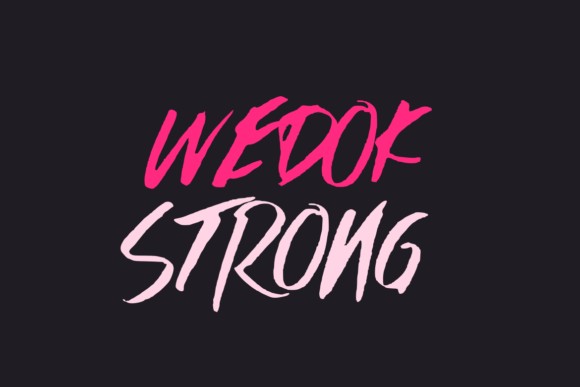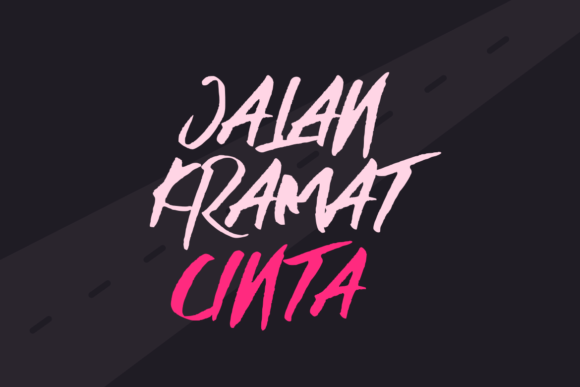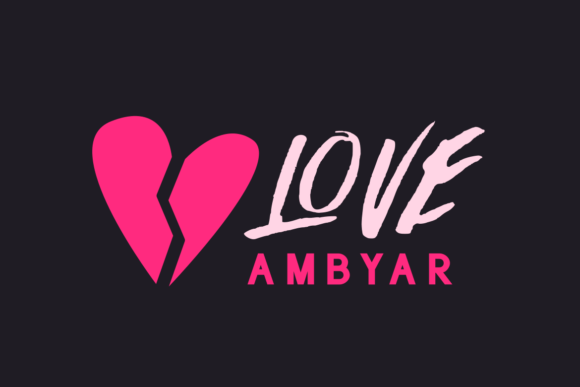
Introduction to Ngamok Font
Have you ever been stuck on a creative project, desperately searching for the perfect font to bring it to life? The frustration of scrolling through endless options can be overwhelming, but what if I told you there’s a game-changer waiting for you? Enter the Ngamok Font, a bold and captivating display font designed to make your creative projects truly stand out from the crowd.
As a designer, you know the importance of having a reliable design resource that can elevate your work. That’s exactly what the Ngamok Font offers – a high-quality, free download that’s perfect for adding a touch of sophistication to your designs. With its transparent background, you can easily layer it over images or other elements, creating a visually stunning effect that’s sure to impress.
Whether you’re working on a branding project, a social media campaign, or a blog post, the Ngamok Font is an invaluable asset that will take your designs to the next level. Its unique style and versatility make it a must-have for any designer looking to add a touch of creativity and flair to their work.
Key Features of Ngamok Font
- Unique, high-quality design resource with a transparent background, ideal for creative projects.
- High-resolution design with a minimum resolution of 300 DPI, ensuring crisp and clear text display.
- Perfect for use in various creative projects, including logos, typography, and graphic designs.
- Comes in a single font size, making it easy to use and customize in various design applications.
- Designed to be versatile and easy to use, making it an excellent addition to any design resource collection.
Honest Review: Ngamok Font
I recently stumbled upon the Ngamok Font, and I must say, it’s been a delightful addition to my design resources. The first thing I noticed was the high quality of the font – crisp, clear, and incredibly versatile. ✨
Here are some of the things that work well with the Ngamok Font:
- Clean and modern aesthetic
- Perfect for digital designs, from logos to social media graphics
- Highly customizable, making it ideal for creative projects
- Limited font sizes, which may not be suitable for large-scale designs
- No bold or italic variations, which can be a bit restrictive
Overall, I’m really impressed with the Ngamok Font. It’s a solid addition to any designer’s toolkit, and I’m excited to see how it performs in future creative projects. ⚠️ Just be aware of the limitations, and you’ll be golden!
How to Use Ngamok Font
The Ngamok Font is a versatile and stylish design resource that can elevate your creative project. This free download offers a high-quality font with a transparent background, making it perfect for various design applications.
Tips for Getting the Most Out of Ngamok Font
For optimal results, use the Ngamok Font in conjunction with other design elements to create a cohesive look. Experiment with different font sizes, colors, and styles to achieve the desired effect.
The Ngamok Font is suitable for various creative projects, including:
- Graphic design and branding
- Print design and marketing materials